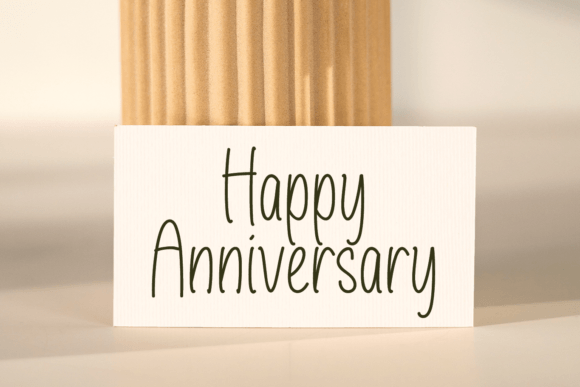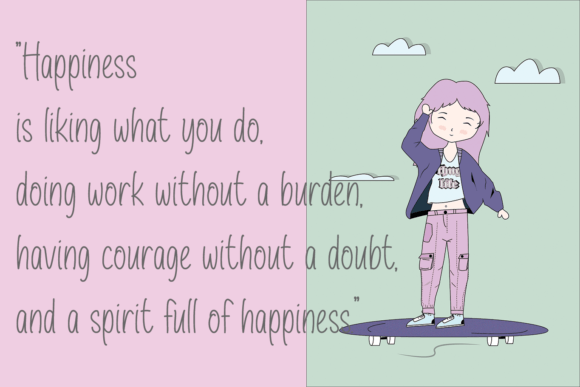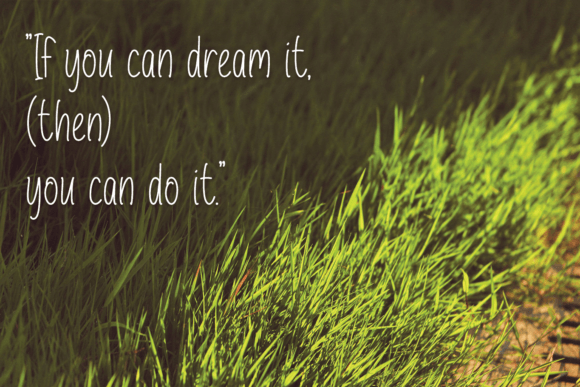
Introduction to Notebook Font
Have you ever been working on a creative project, pouring your heart and soul into it, only to feel like something’s missing? You’ve got the perfect design, the perfect colors, but it just needs that special something to make it pop. That’s where a high-quality font like the Notebook Font comes in – a minimal and neat handwritten font that can elevate your design to the next level.
As a designer, you know how crucial it is to have the right design resources at your fingertips. A great font can make all the difference in bringing your creative vision to life. And with the Notebook Font, you can easily match it to a large set of projects, from branding to advertising and beyond.
Notebook Font
- Includes a range of glyphs and characters, perfect for creating engaging and unique content
- Designed to be highly legible, even at smaller font sizes, making it ideal for body text and titles
Honest Review: Notebook Font
I’ve been experimenting with the Notebook Font for my latest creative project, and I’m excited to share my honest thoughts on this design resource.
Firstly, the Notebook Font is a high quality font that perfectly captures the essence of handwritten notes. The delicate curves and imperfections make it an ideal choice for designers looking to add a personal touch to their work.
- ✨ Beautifully crafted with attention to detail
- ✨ Suitable for a wide range of creative projects, from invitations to digital designs
- ⚠️ Limited font sizes available, which may require some adjustment in certain designs
- ⚠️ Not ideal for projects requiring a bold or dramatic font style
Overall, I’m impressed with the Notebook Font’s versatility and aesthetic appeal. It’s a valuable addition to any designer’s toolkit, especially for those working on creative projects that require a touch of personality.
Notebook Font
Tips for Getting the Most Out of Notebook Font
To get the most out of Notebook Font, use it in combination with other high-quality design resources, such as images and graphics. You can also experiment with different font sizes and styles to create a unique and creative look.
Notebook Font is perfect for a variety of applications, including invitations, greeting cards, and other paper crafts. Its elegant and classic style makes it ideal for formal events and occasions, while its transparent background makes it easy to use in digital designs.